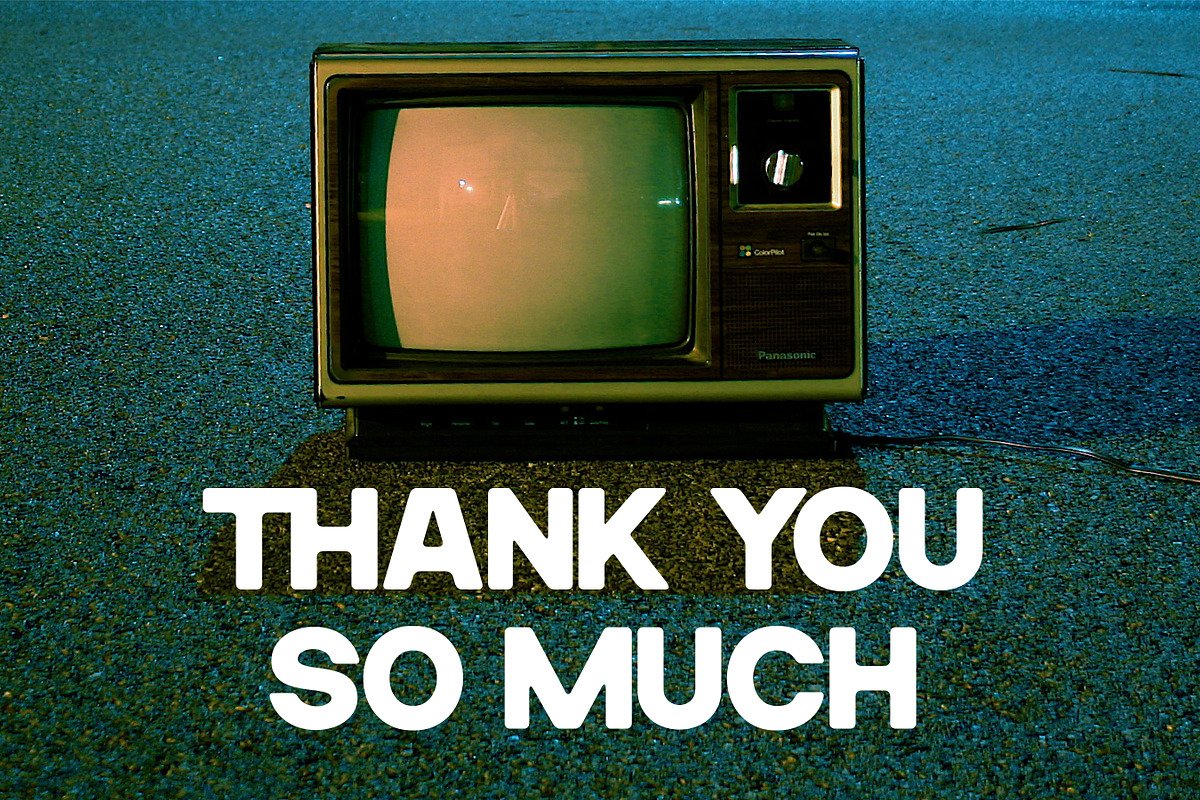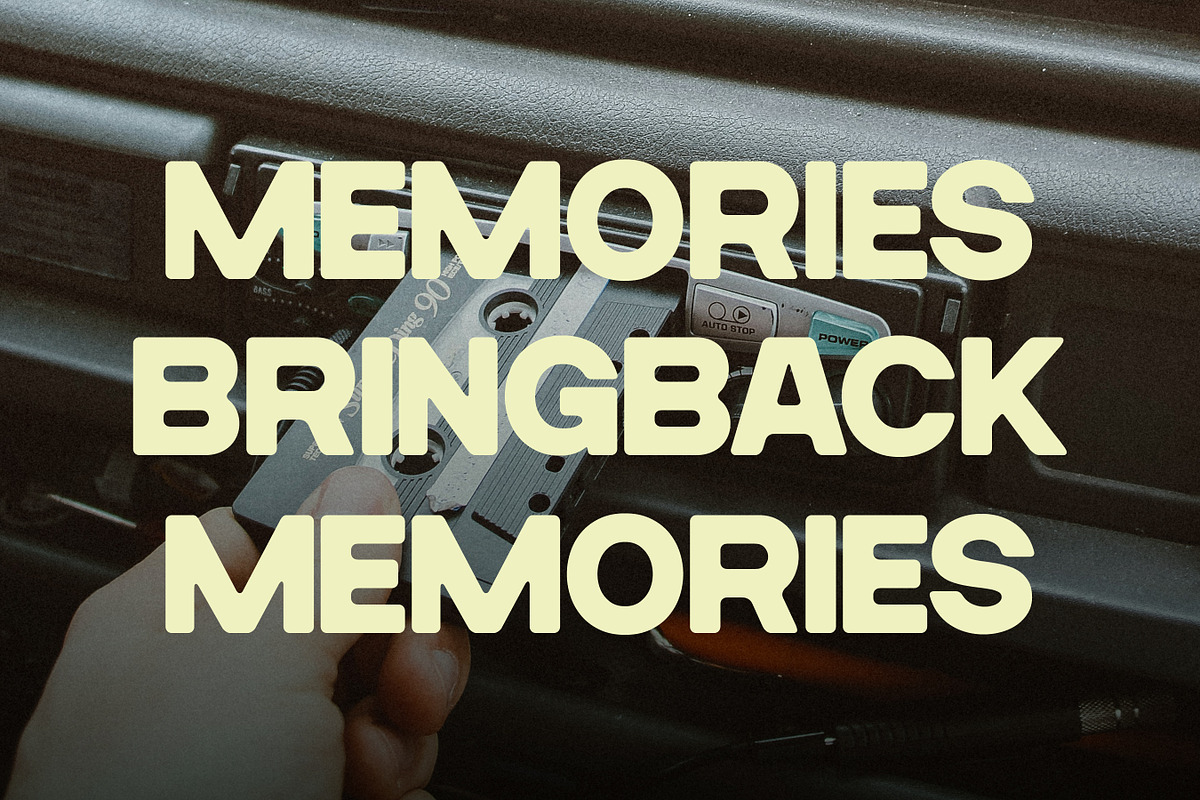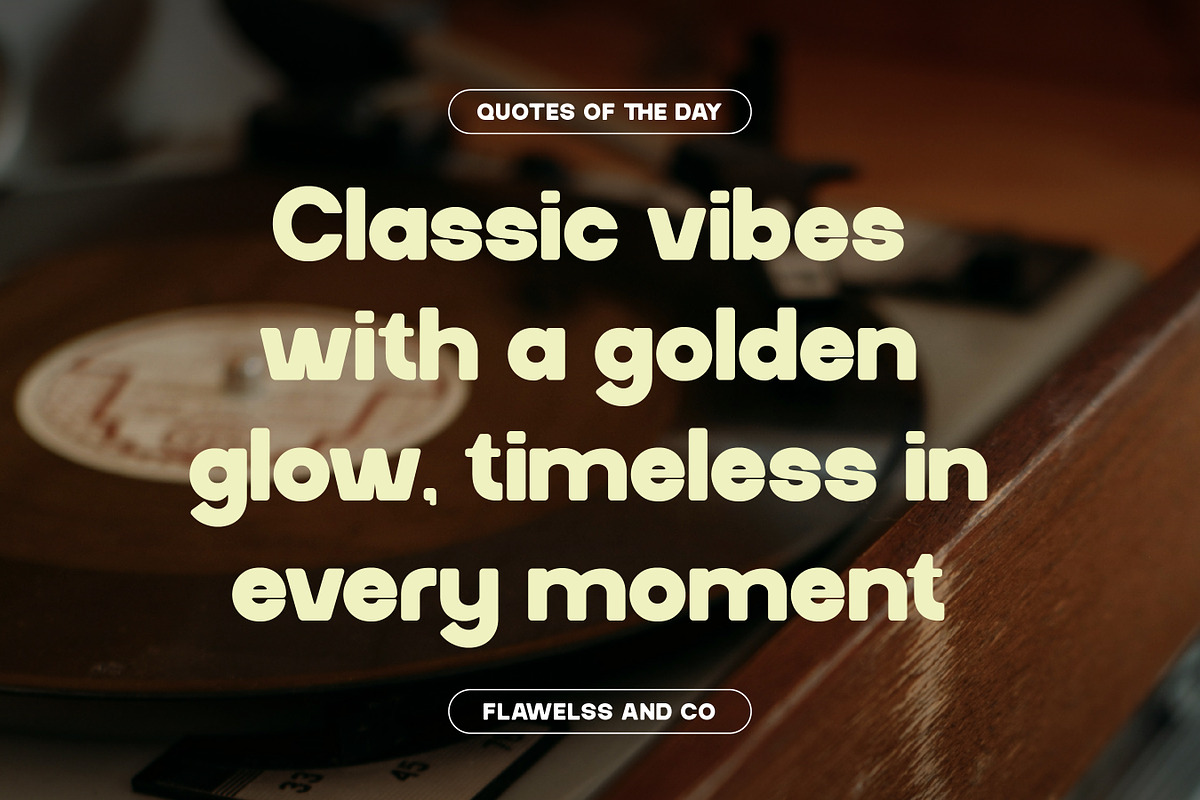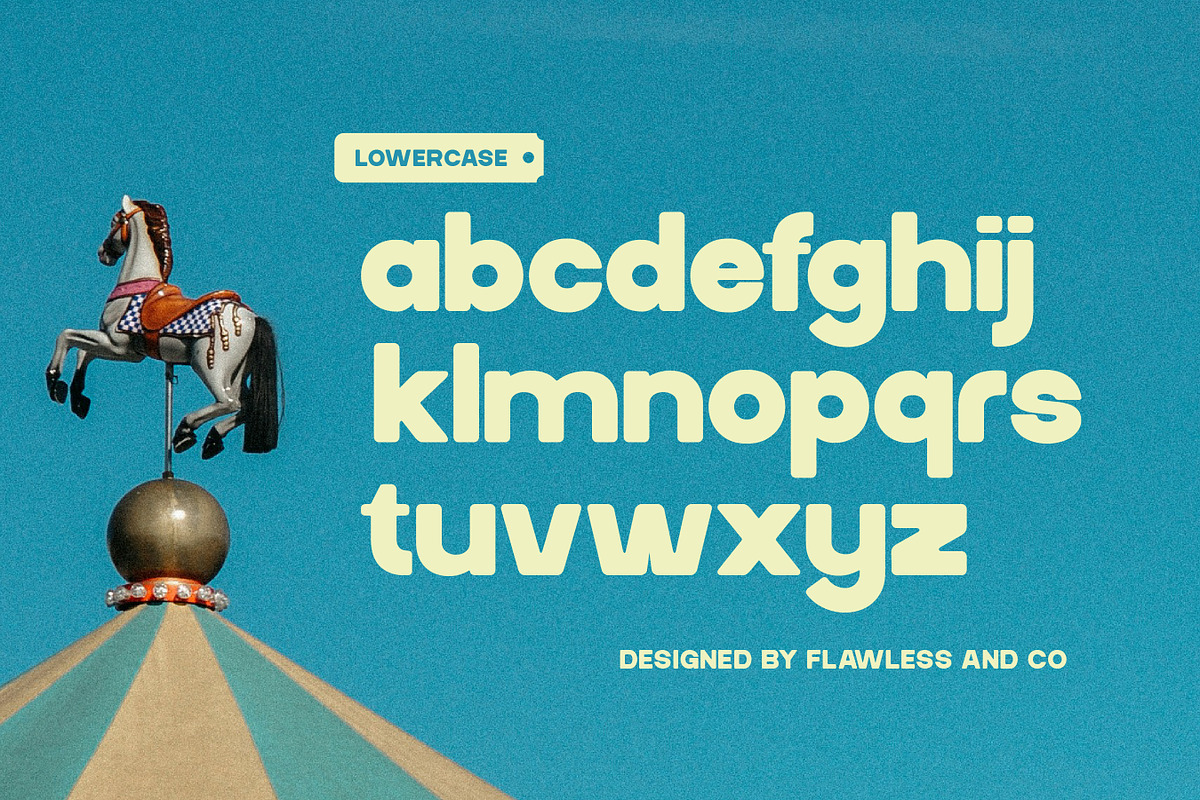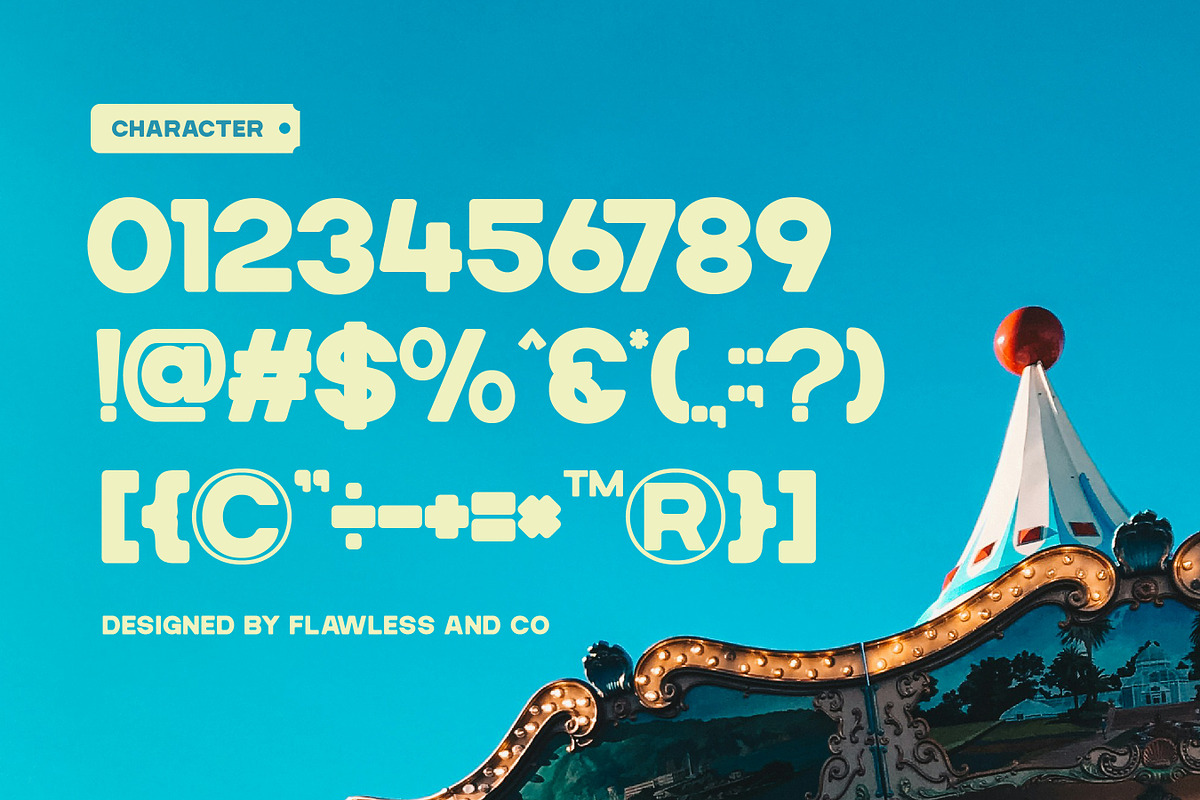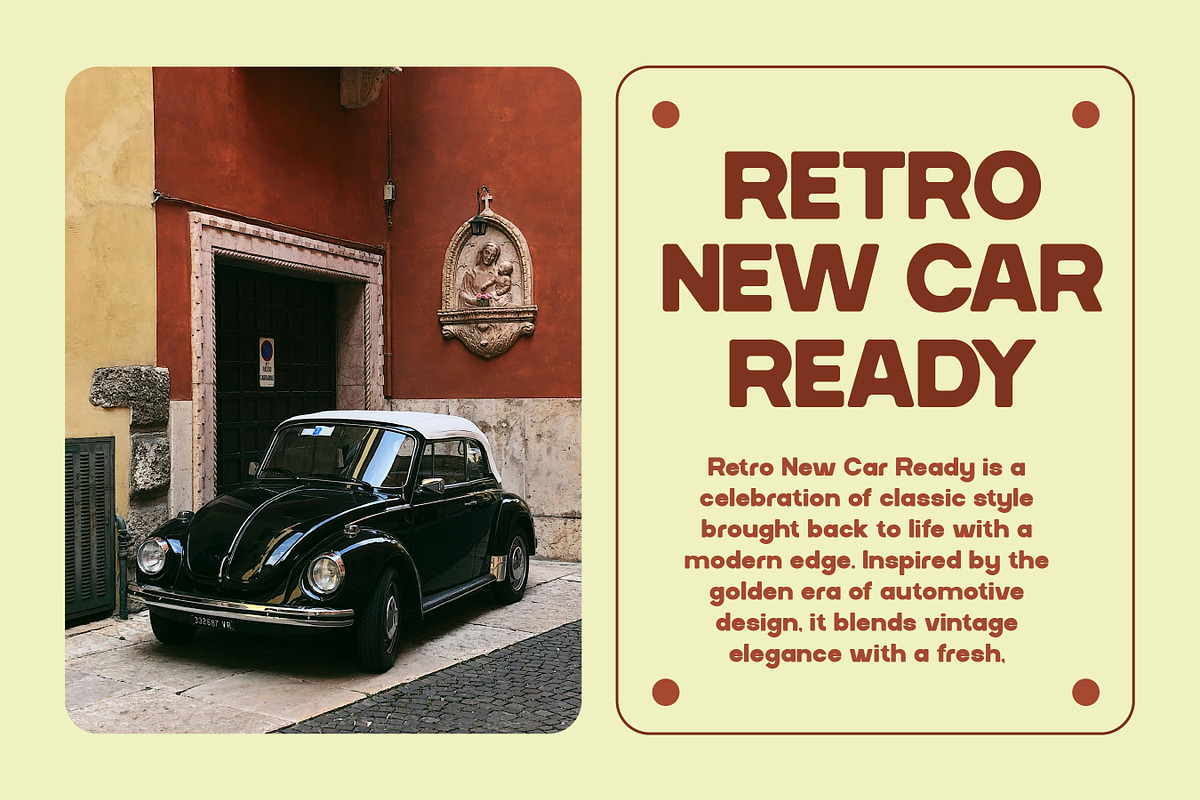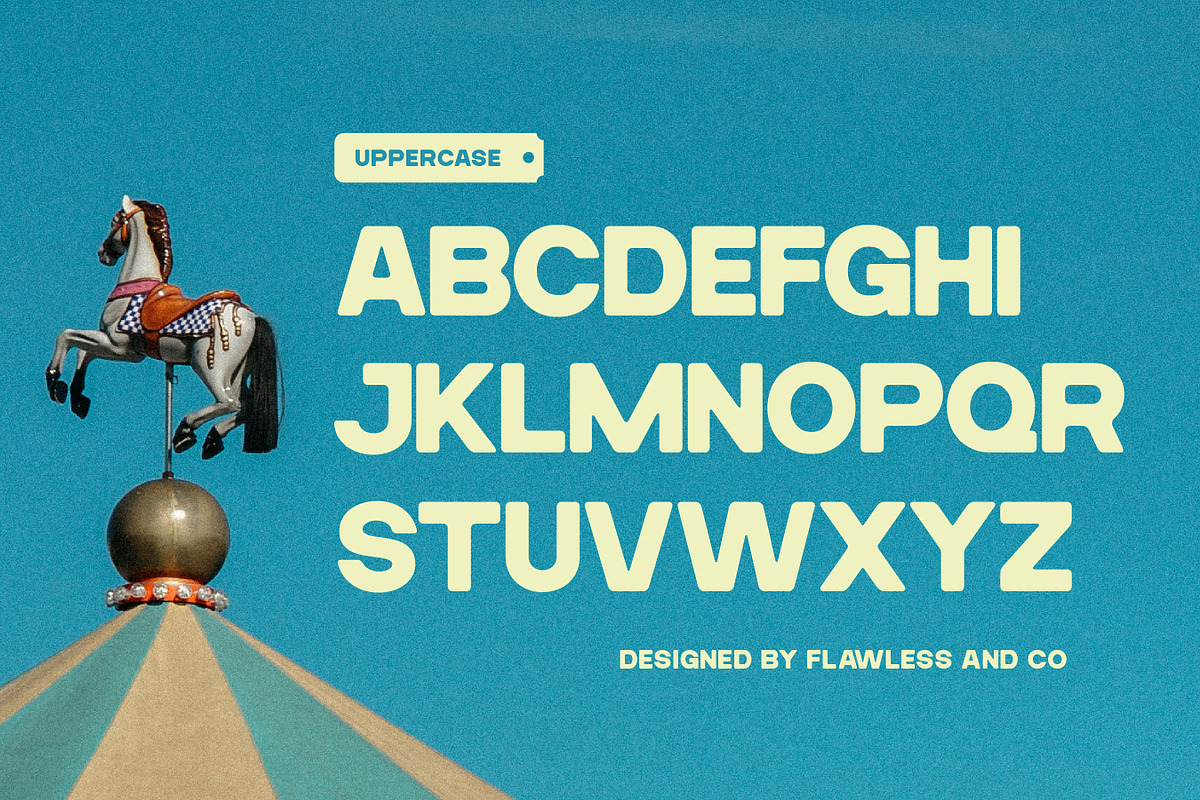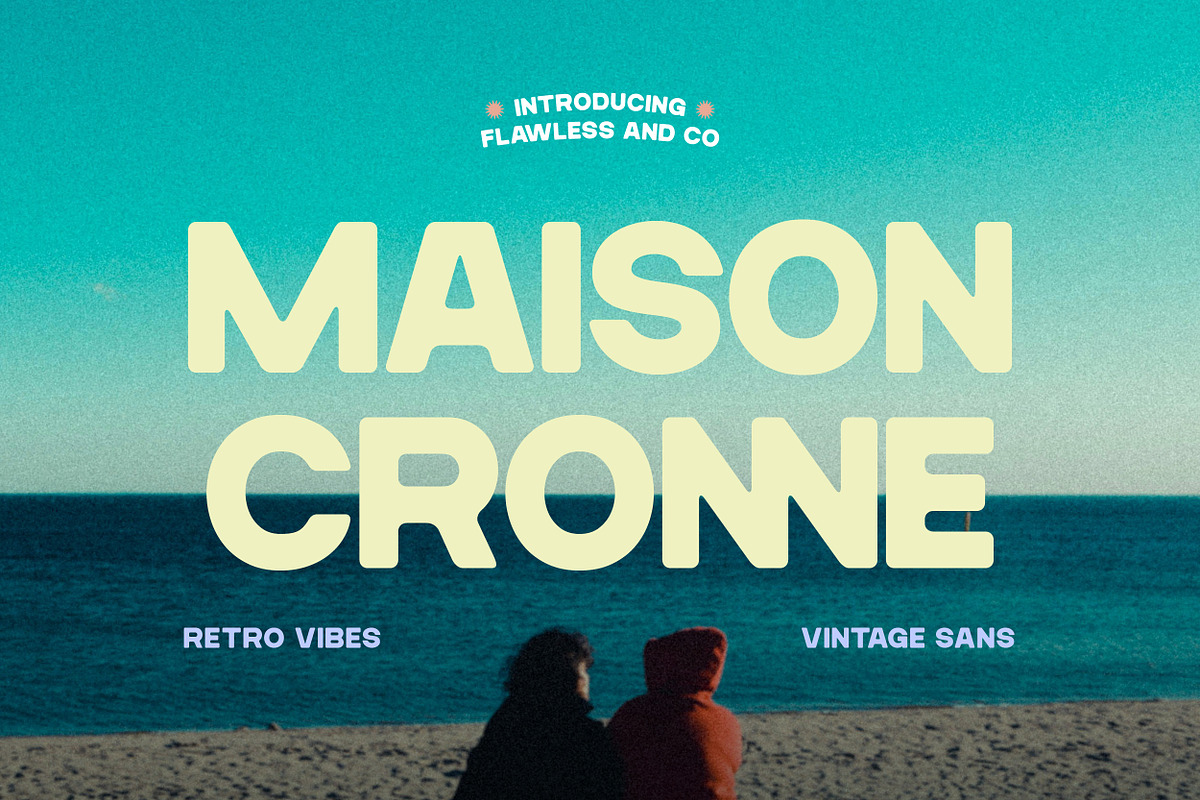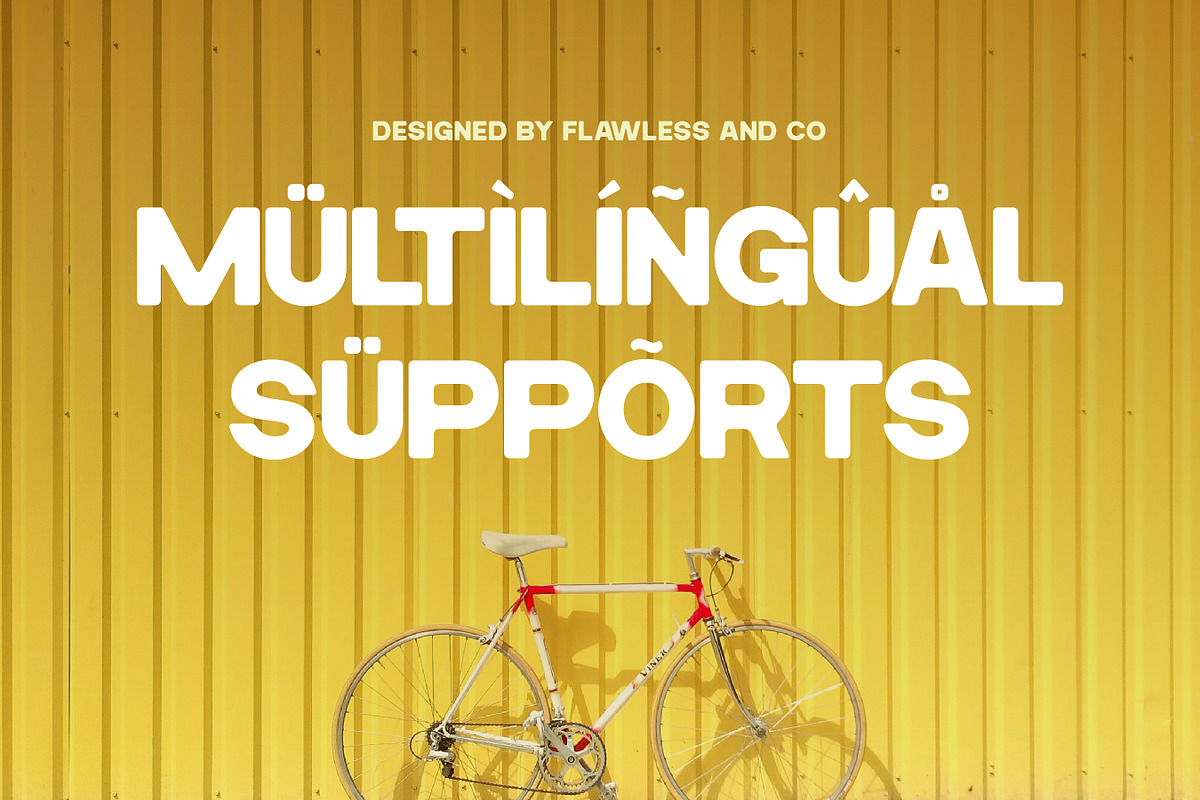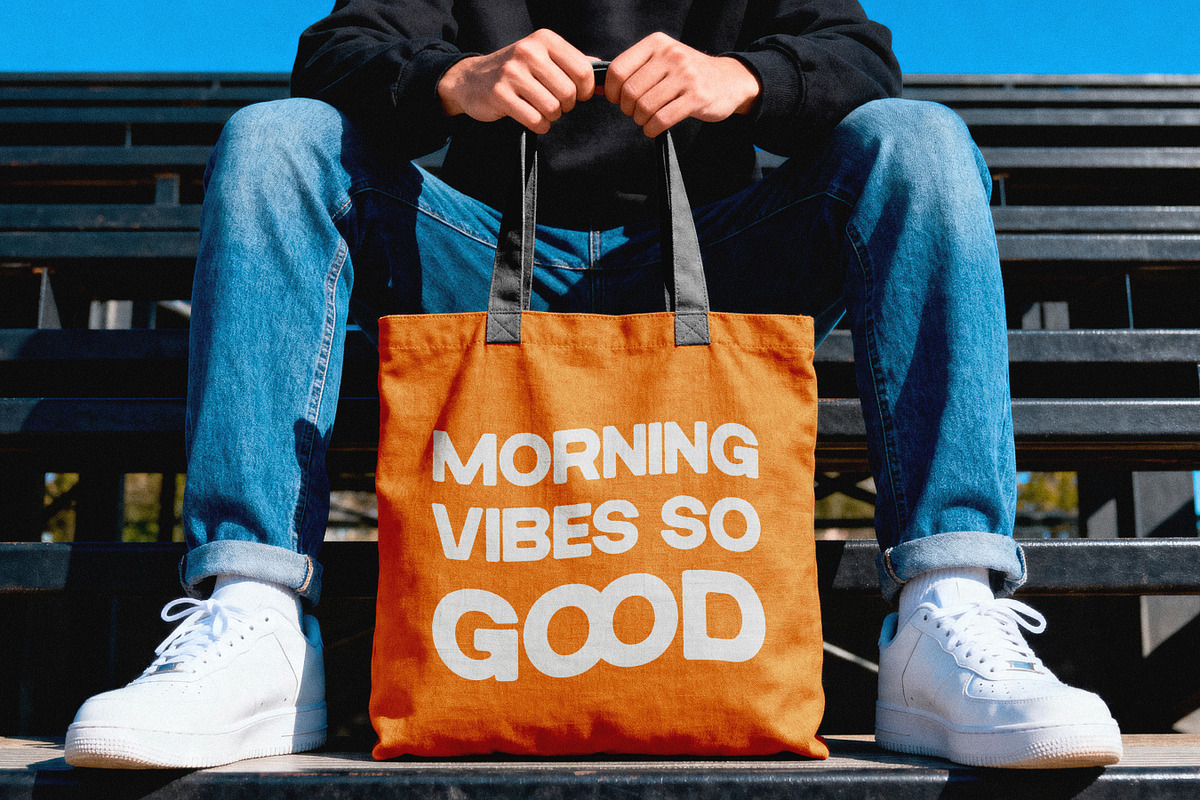
Maison Cronne - Retro Sans Serif
Maison Cronne - Retro Sans Serif Font
Maison Cronne is a modern retro sans serif typeface infused with strong vintage vibes and bold personality. Inspired by classic typography styles, it features rounded shapes and nostalgic details that create a warm and expressive visual feel. Its retro character is balanced with a clean contemporary structure, making it versatile for both playful and professional designs. Maison Cronne is perfect for creating eye-catching visuals that feel timeless, stylish, and full of charm.
Alternates & Ligatures
Who Should Use Maison Cronne?
Maison Cronne is perfect for designers, creatives, and brands who want to bring retro energy into modern design projects. It’s especially suited for work that requires a vintage aesthetic with a clean and approachable look.
Suitable For:
Retro and vintage branding
Poster and advertising design
Packaging and product labels
Logo and identity creation
Café and lifestyle projects
Editorial and magazine layouts
Social media content
Bold retro typography